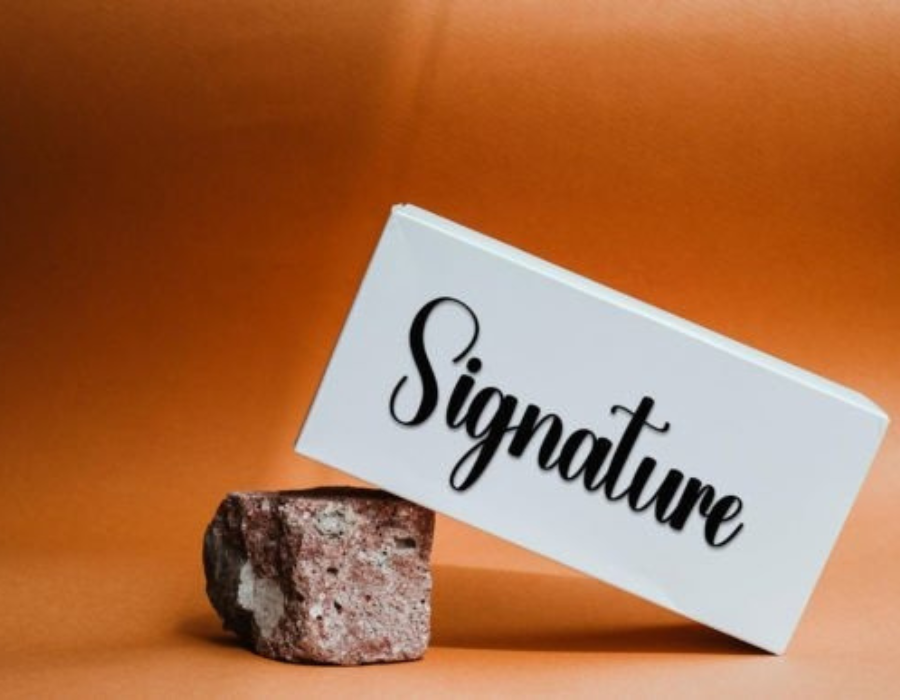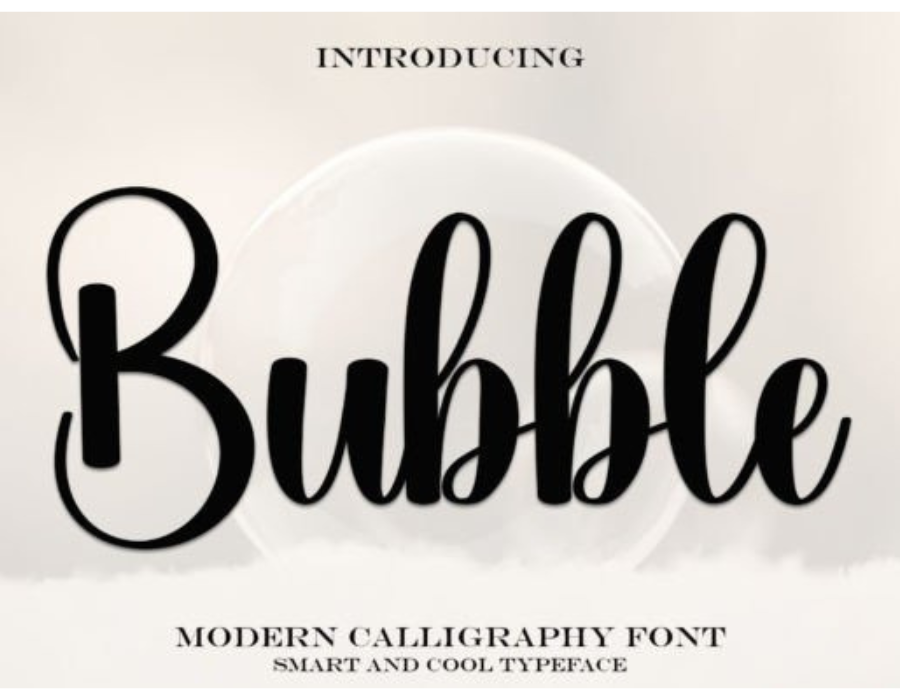
Bubble Font: A Bold and Playful Typography Style That Pops
In the world of design and visual communication, typography plays a crucial role in shaping how messages are delivered and perceived. Among the vast and diverse categories of fonts, Bubble Font stands out as one of the most expressive, joyful, and attention-grabbing styles. Known for its round, inflated, and cartoonish appearance, Bubble Font is more than just a typographic trend—it’s a creative statement.
Whether used in branding, poster design, children’s content, or modern digital graphics, Bubble Font captures a sense of energy, warmth, and fun. Its quirky, oversized letterforms and plump curves exude a lighthearted charm that appeals to audiences across ages and industries.
In this article, we’ll dive deep into the fascinating world of Bubble Font—exploring its origins, design characteristics, practical applications, benefits for creatives, and tips for using it effectively in your own projects.
What Is Bubble Font?
Bubble Font refers to a category of decorative display typefaces characterized by their thick, rounded, and soft-edged letterforms. These fonts often resemble letters inflated like balloons or drawn with a bubbly, playful hand. Originally popularized through graffiti art and children’s media, bubble-style fonts have evolved into a versatile visual tool that can be found in branding, merchandise, packaging, and digital artwork.
The term “Bubble Font” doesn’t point to a single typeface, but rather to an entire family of fonts that share certain design traits. Think of fonts like Bubblegum Sans, Bubbleboddy, JellyBelly, or Bubblicious—all designed to look inflated, juicy, and fun.
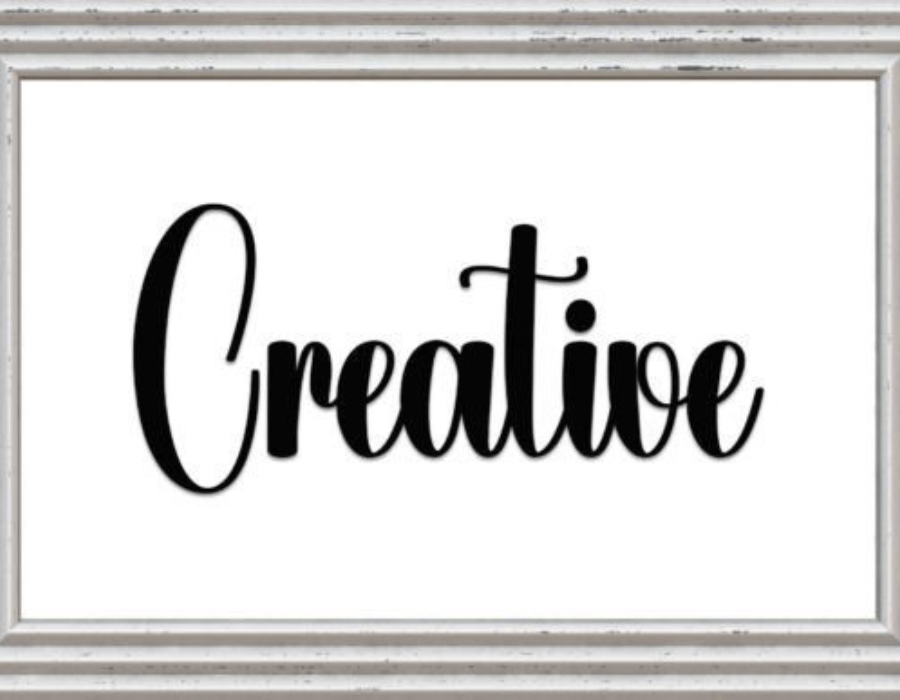
Origins and Evolution of Bubble Typography
The roots of bubble lettering can be traced back to street art and graffiti culture, especially in the 1970s and 1980s in New York City. Graffiti artists used wide spray can strokes to create bold, rounded letters that stood out on urban walls and trains. The legibility, vibrancy, and energetic vibe of these bubble letters quickly turned them into an iconic style.
Over the years, the look evolved beyond street culture. Bubble letters became popular in children’s book covers, cartoon logos, cereal boxes, party invitations, and school projects. As digital design tools advanced, bubble fonts made their way into font libraries and design software, allowing artists to recreate the graffiti-like vibe without hand-drawing each letter.
Today, Bubble Font is a beloved style in both print and digital media, celebrated for its balance of nostalgia, fun, and expressive typography.
Key Characteristics of Bubble Font
Bubble Fonts share a number of signature characteristics that make them instantly recognizable:
✦ Rounded Letterforms
The most defining feature of any bubble font is its curvy, balloon-like shape. Every character is built from rounded strokes with soft edges, making the text appear friendly and approachable.
✦ Thick and Bold Structure
Bubble Fonts are almost always bold or extra-bold in weight. Their thickness ensures that they remain legible even when stylized, and they command attention in any visual layout.
✦ Uniform Stroke Width
Many bubble fonts feature consistent stroke width across letters, contributing to a cohesive and inflated look, almost as if each letter is filled with air.
✦ Playful, Youthful Feel
Due to their association with cartoons, toys, and party decor, bubble fonts naturally exude a sense of fun, making them perfect for cheerful, lighthearted themes.
✦ Occasional 3D or Shadow Effects
Some bubble fonts are designed with shadows or highlights to give them a three-dimensional look, enhancing their “popped-out” feel and creating more visual impact.
Best Use Cases for Bubble Fonts
Because of their decorative and bold style, Bubble Fonts are ideal for specific design contexts. Here are some of the best scenarios to use them:
1. Children’s Products and Media
Bubble Fonts are a natural fit for kids’ toys, books, educational material, cartoons, and birthday party decorations. Their bouncy, joyful vibe appeals instantly to younger audiences.
2. Event Invitations
Birthday parties, baby showers, carnivals, or any event with a festive theme can benefit from the bubbly charm of this font style. It makes headlines pop and adds a sense of celebration.
3. Logo Design and Branding
Brands that aim to express joy, creativity, or a youthful identity—such as candy companies, toy stores, or playful apparel brands—often use bubble fonts in logos or packaging.
4. Social Media Graphics
If you want your social media post to stand out on Instagram, YouTube, or TikTok, a Bubble Font headline can help you catch the audience’s eye in a sea of scrolling content.
5. Posters and Flyers
Event posters, fair announcements, or promotions for kid-centric activities work great with Bubble Fonts. Their bold and colorful appearance adds vibrancy to any layout.
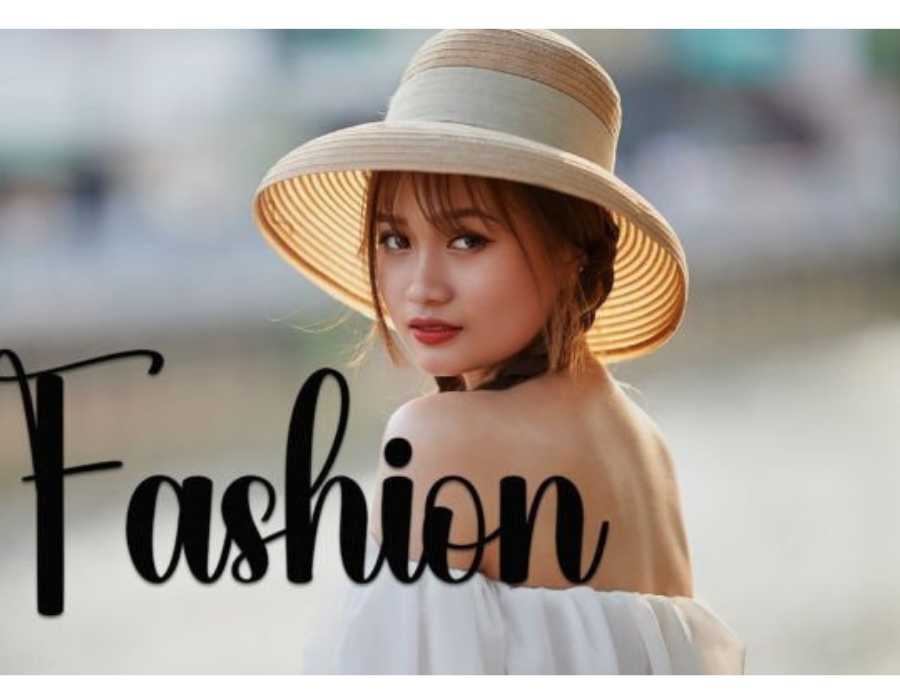
By understanding its strengths, knowing where it fits best, and applying it thoughtfully, you can use Bubble Fonts to tell stories that pop—both visually and emotionally. As the design world continues to embrace expressive, nostalgic, and vibrant aesthetics, Bubble Fonts remain a timeless favorite that adds color and character wherever they go.